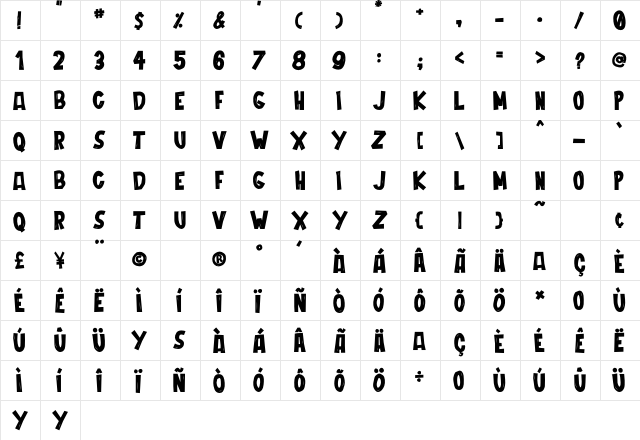
Cordenilo Bold
| Foundry | Danilo Miguel |
| Designer | Danilo Miguel |
Design Context for Cordenilo Typeface
Cordenilo is a composed and adaptable typeface that performs quietly and consistently across a wide range of design contexts. Its bold stroke weight gives it real presence on the page.